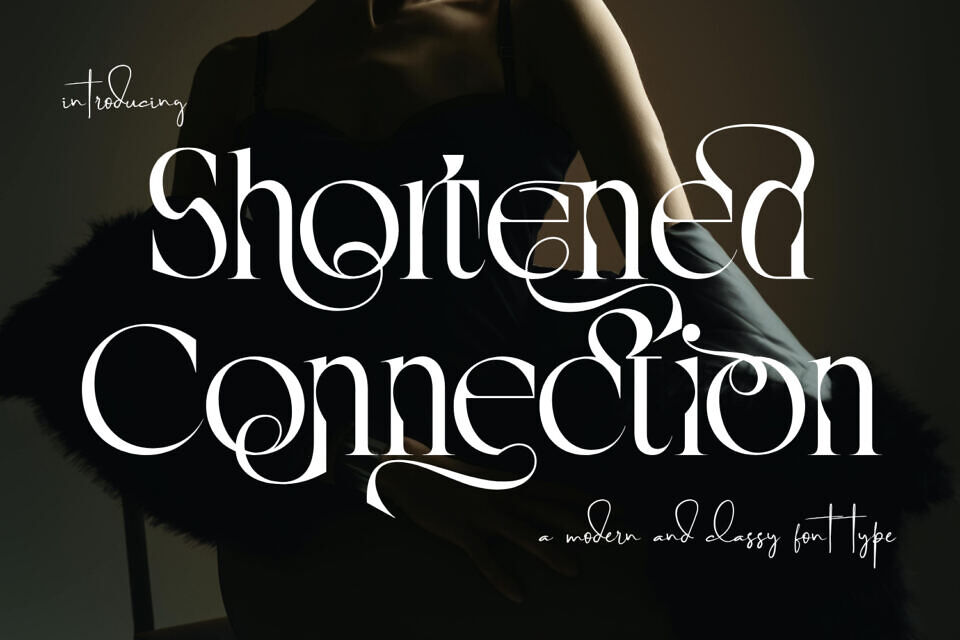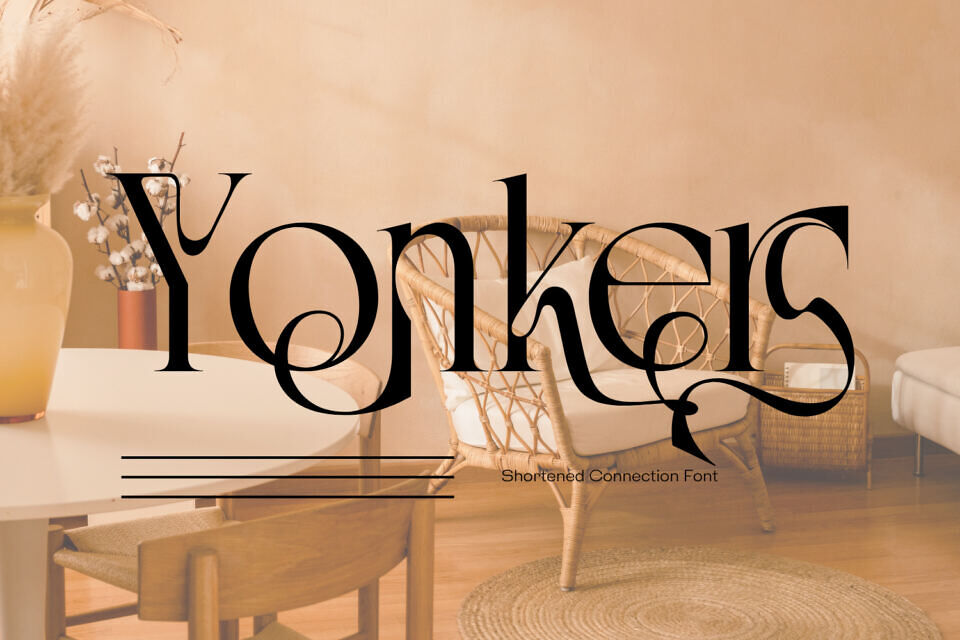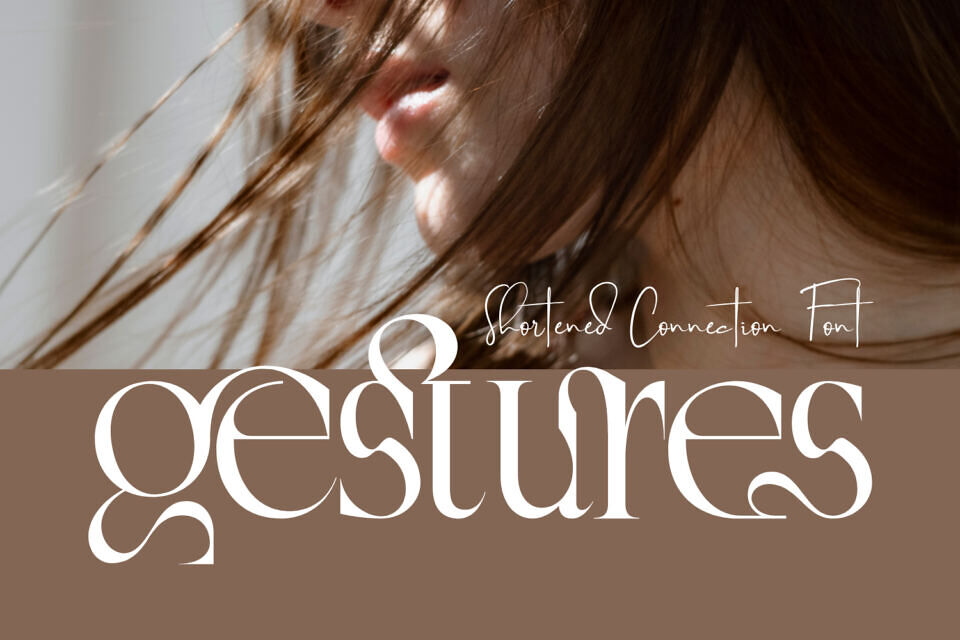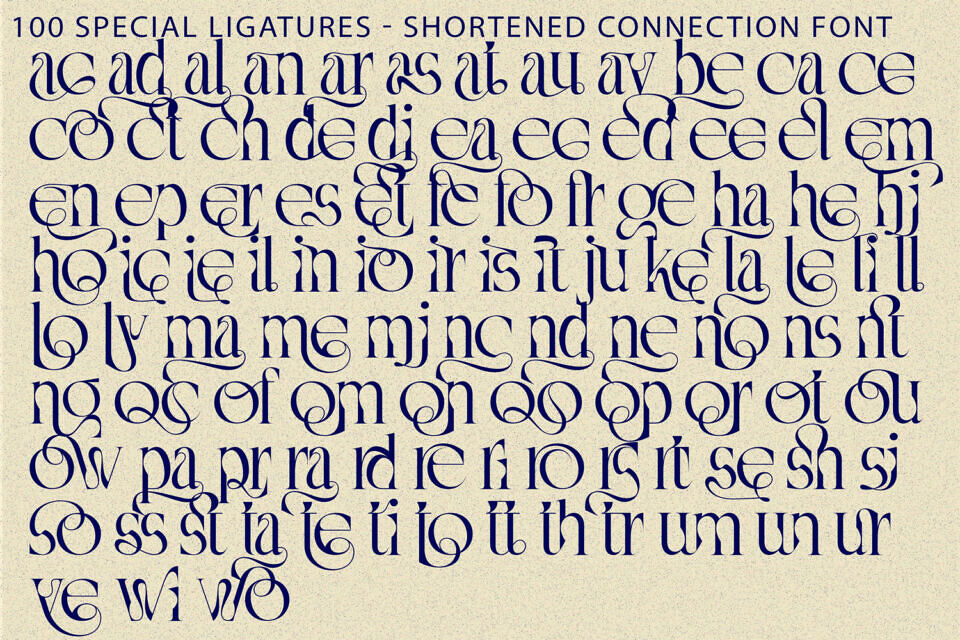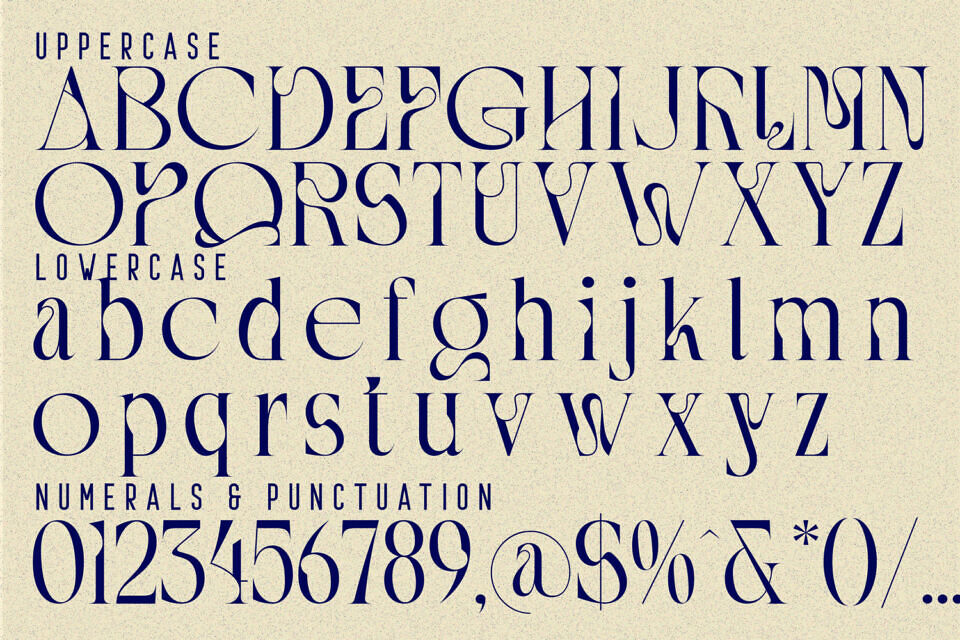
Shortened Connection Font
Shortened Connection is an elegant calligraphic serif display font that beautifully blends classic typography with graceful handwritten influences. Featuring high-contrast strokes and refined serif details, this typeface delivers a timeless and sophisticated appearance.
Enhanced with flowing swashes and stylish ligatures, Shortened Connection creates a natural sense of movement and harmony across every word. The delicate curves and decorative connections add a romantic and luxurious touch, making it ideal for wedding designs, fashion branding, editorial layouts, and premium logos.